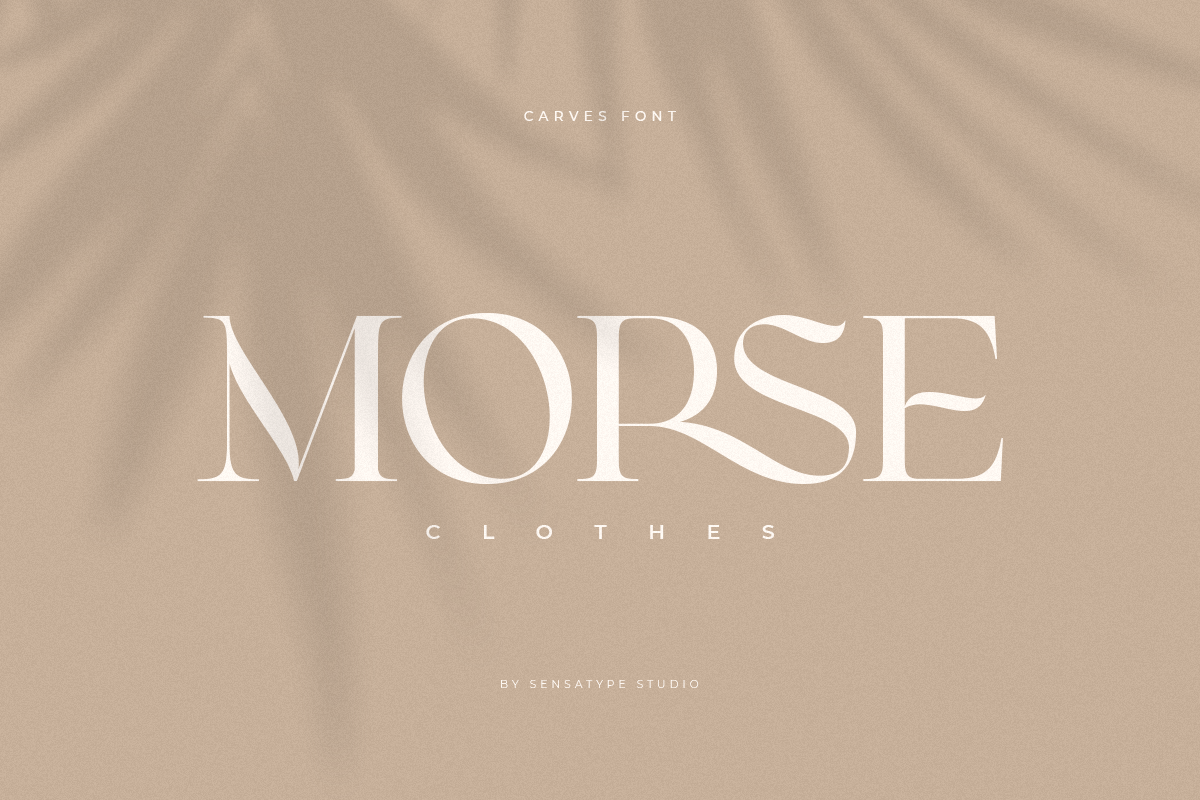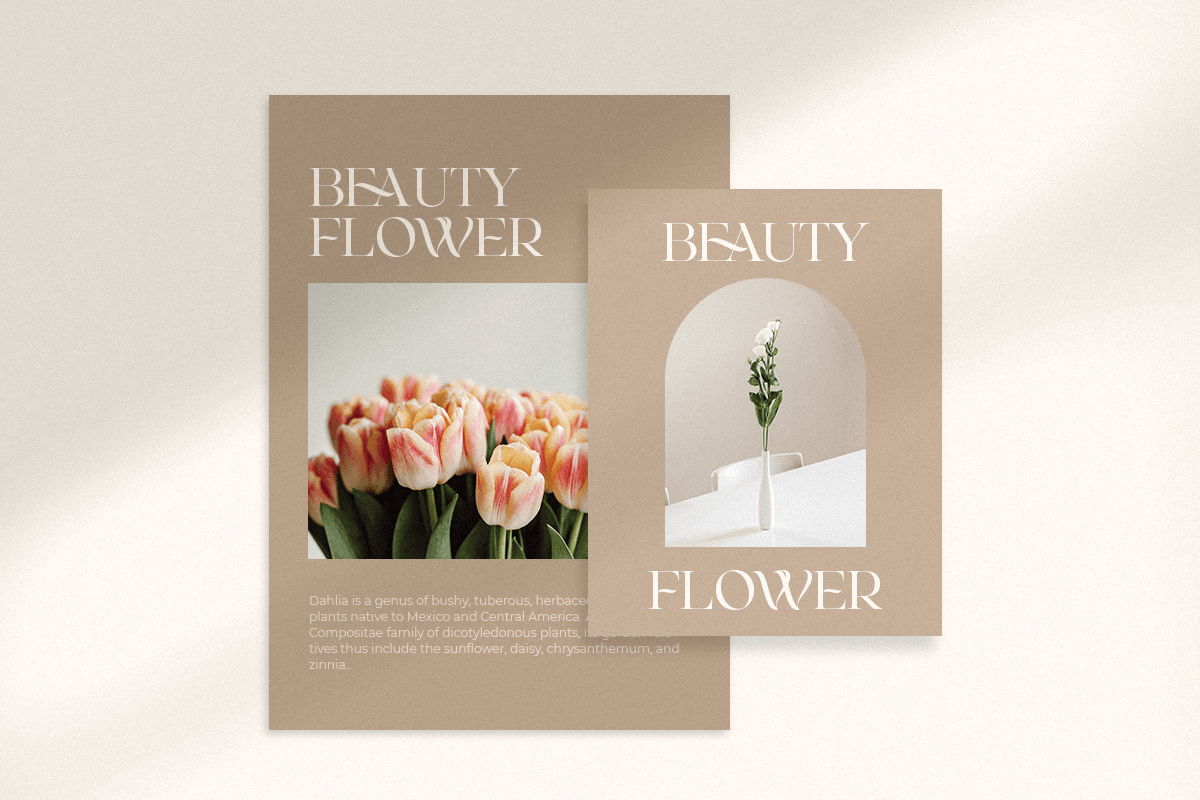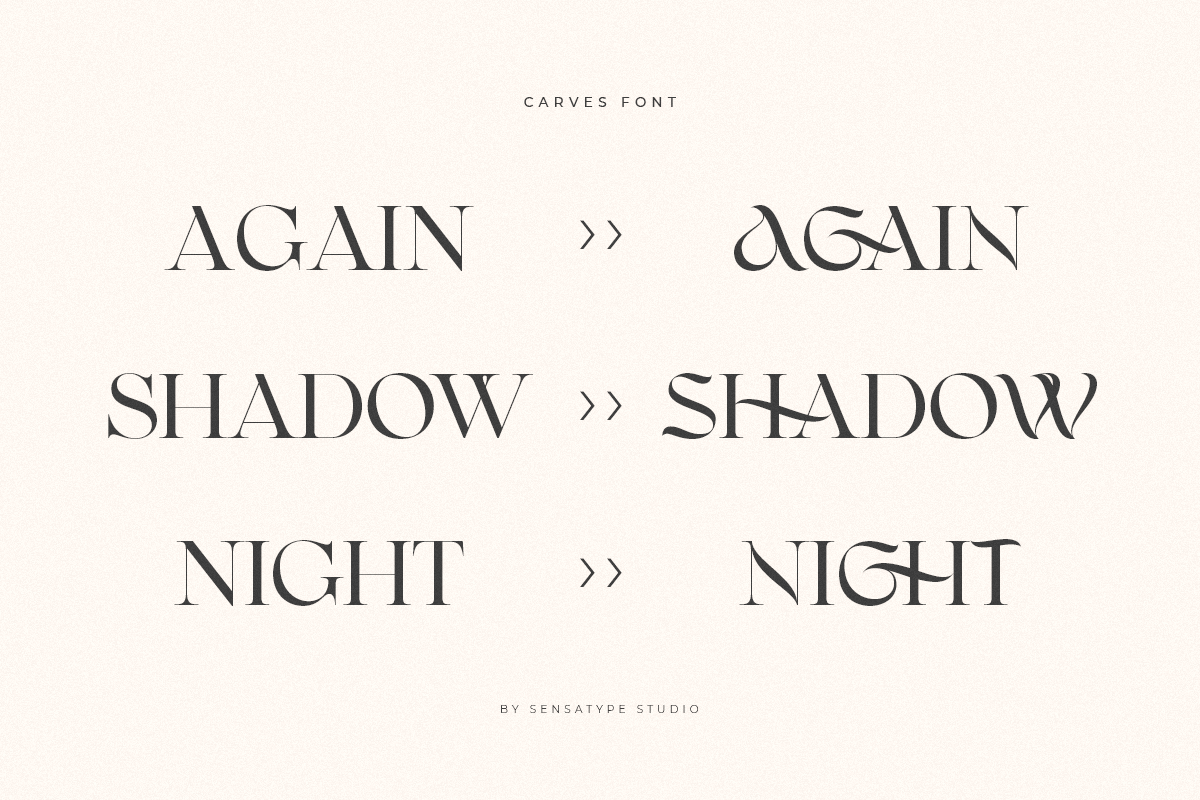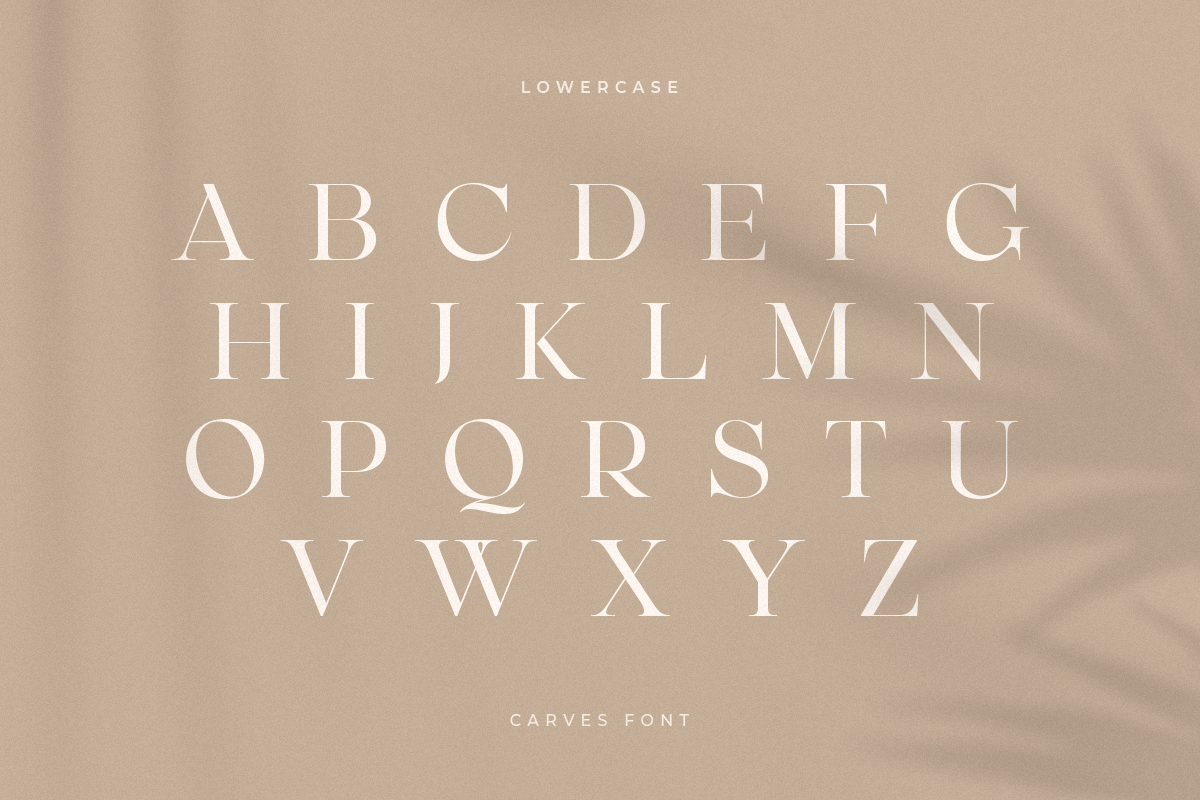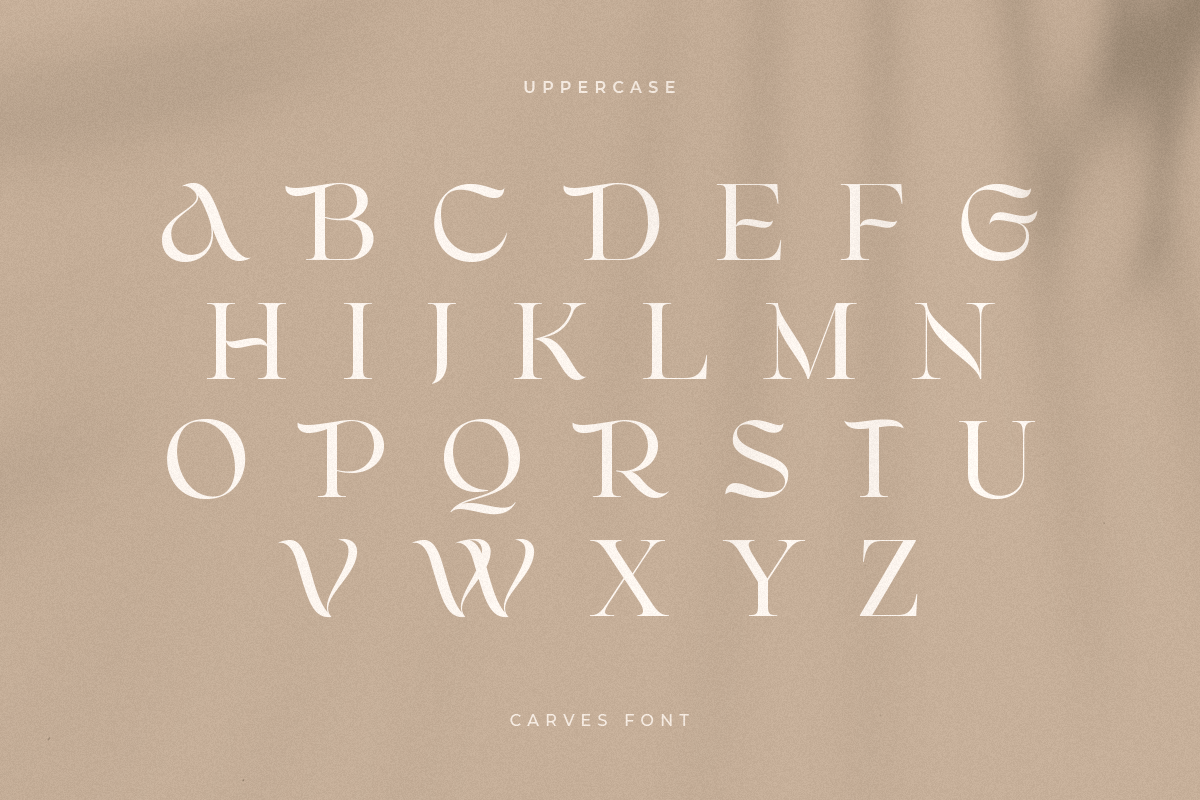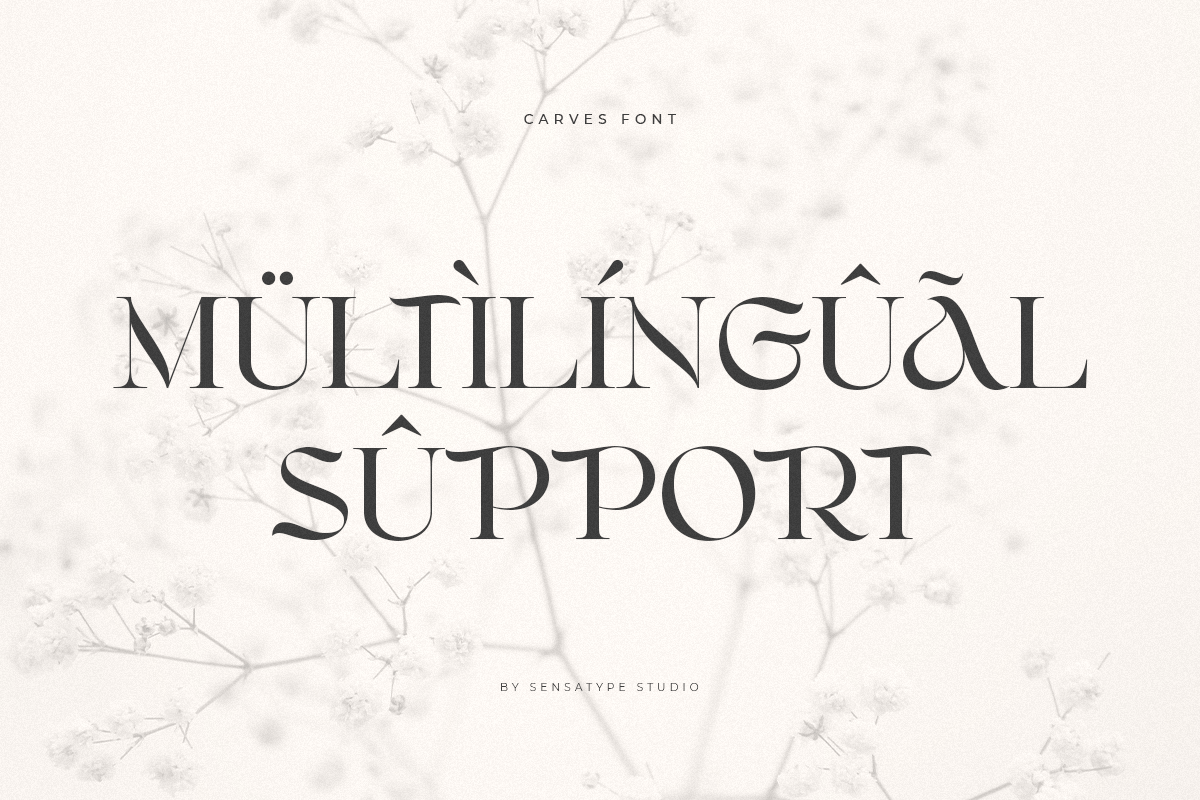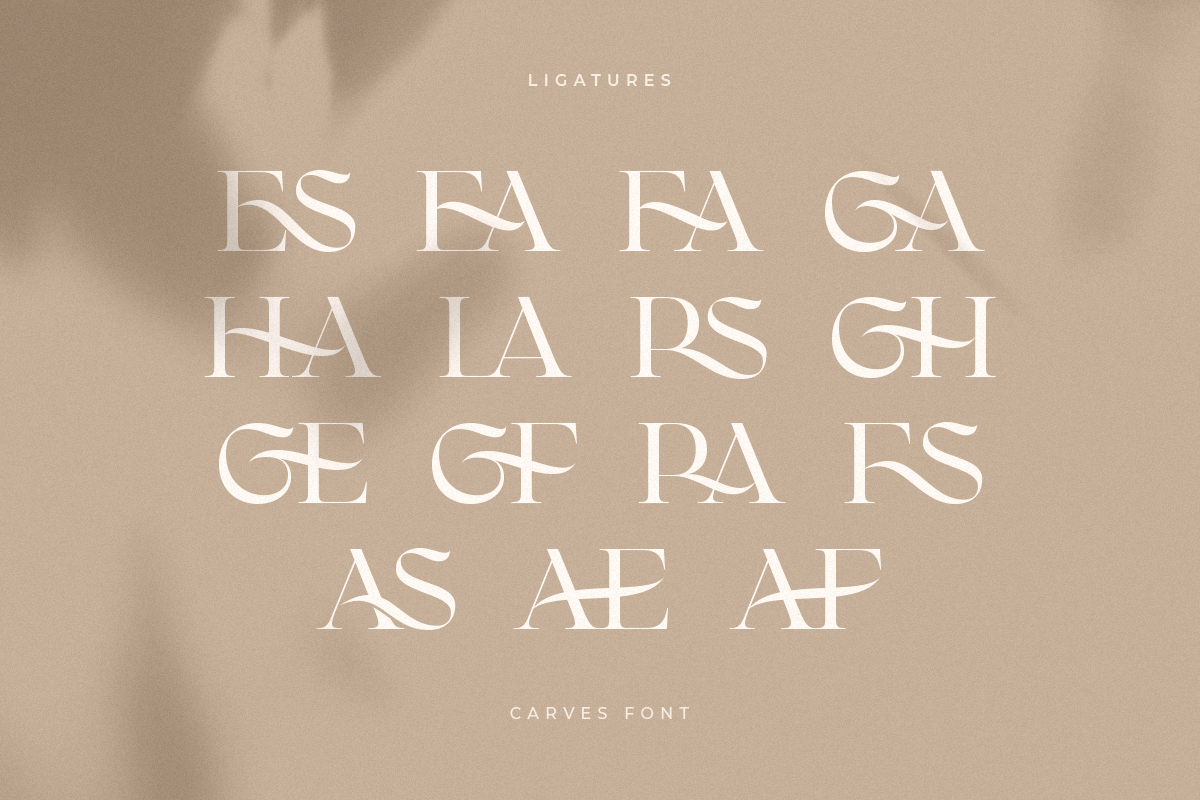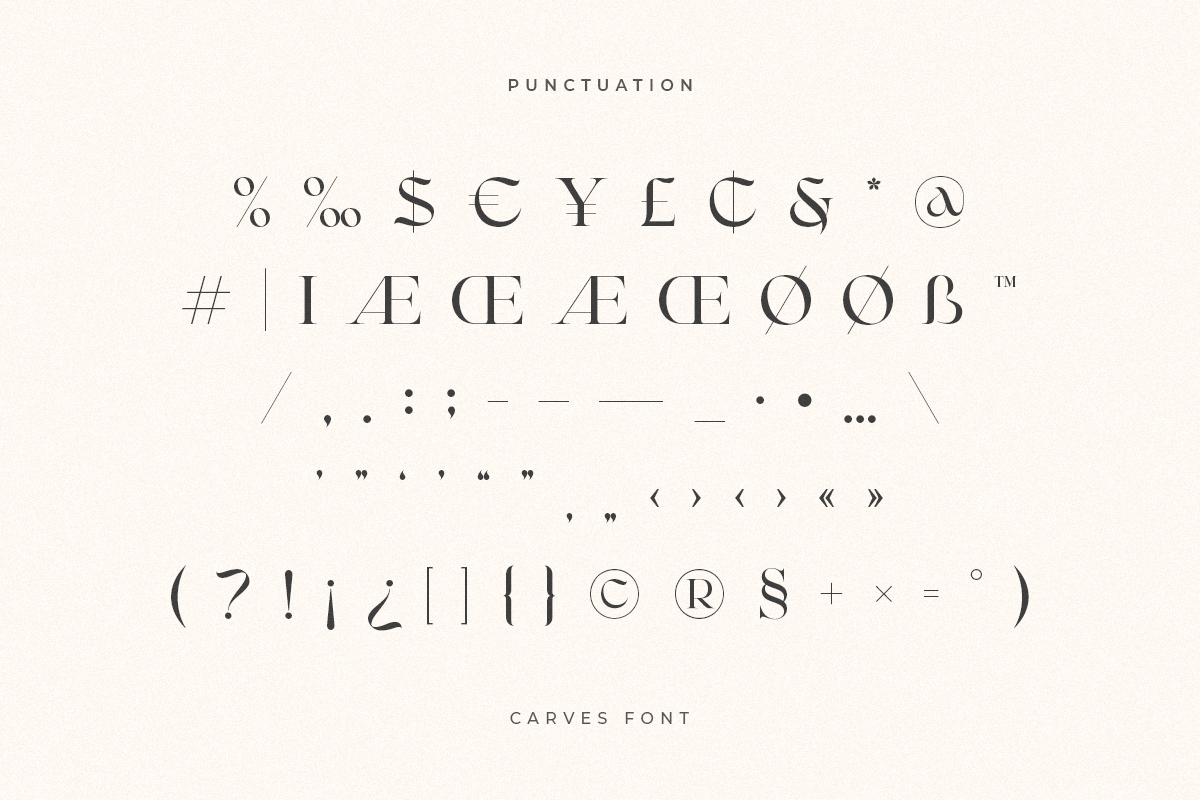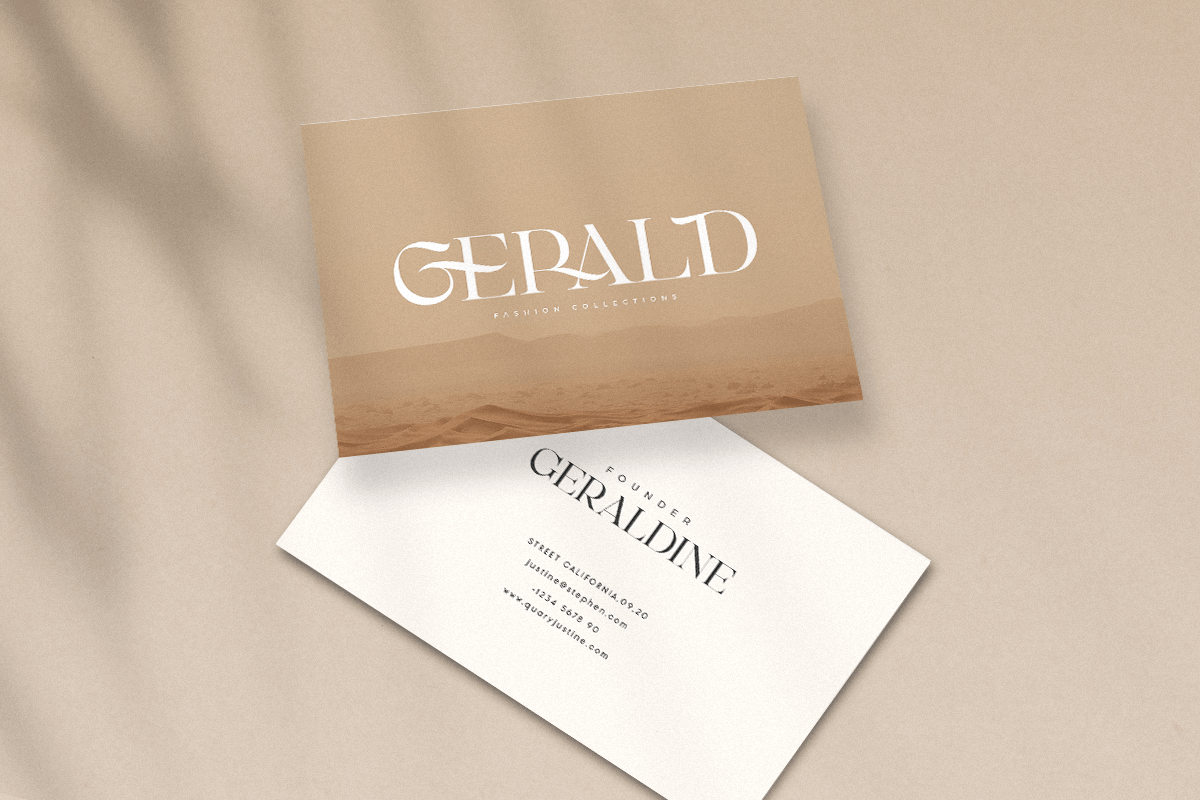
CARVES
-Modern Display Font
Carves
CARVES is a Modern Display Font
A new Display Serif that we created special for logo and branding needs, with extra unique shape that will add your brand value. It so nice to leverage designer or product owner that need solutions to make their design look more Unique and modern. And specially for Sugar font, We prepared any alternate characters to help you create unlimited variations for your creative needs specially for logotype or wordmark.
CARVES Modern Display font ready with:
• Any options to get creative variations (combination of Alternates)
• Ready with All Uppercase characters